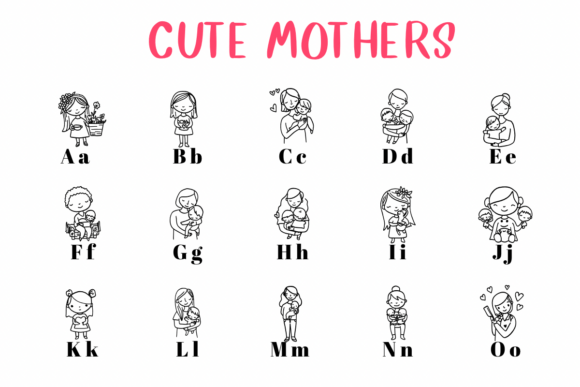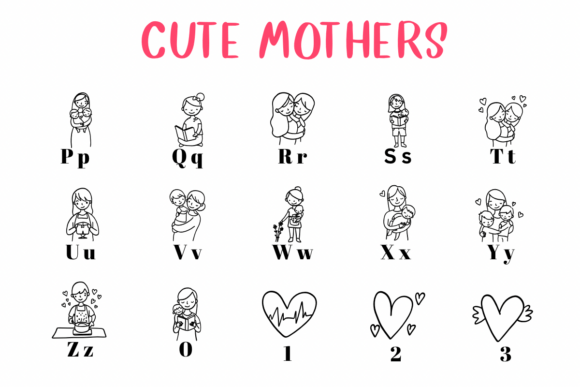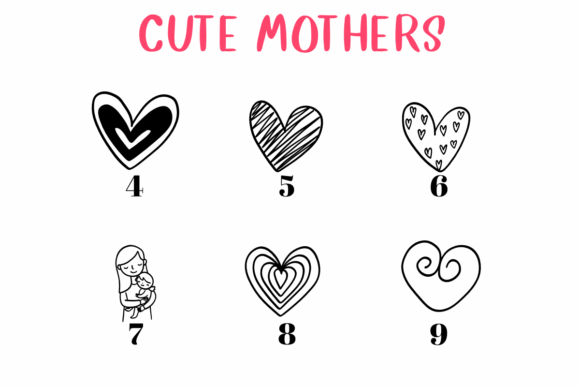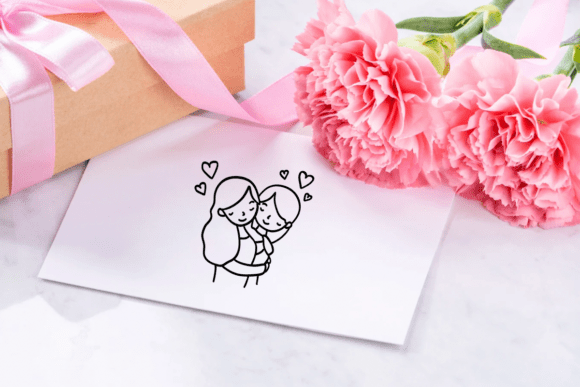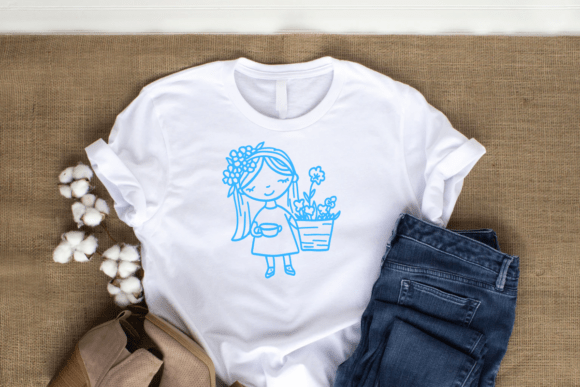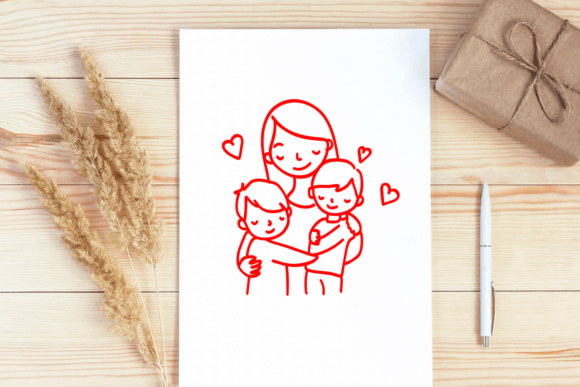
Cute Mothers Font: A Heartwarming Dingbat Font for Mother’s Day and Beyond
Are you looking for a unique and adorable way to express your love and appreciation for moms? Look no further than the Cute Mothers Font, a charming dingbat font filled with sweet and expressive illustrations of mothers and their little ones. This delightful font is perfect for Mother’s Day designs, baby shower invites, family scrapbooks, and heartfelt crafts.
What is Cute Mothers Font?
Cute Mothers Font is a dingbat font that features a collection of charming illustrations of moms and their children. The font is designed to add a loving touch to your creations, making it perfect for designers, crafters, and anyone looking to create heartfelt projects. With its sweet and expressive doodles, this font is sure to bring a smile to anyone’s face.
Perfect for Mother’s Day Designs
Mother’s Day is just around the corner, and what better way to show your appreciation for mom than with a custom design featuring the Cute Mothers Font? This font is perfect for creating beautiful and heartfelt Mother’s Day cards, posters, and social media posts. You can use the font to create custom illustrations of mom and child, or add a personal touch to your designs with adorable doodles.
Baby Shower Invites and Family Scrapbooks
The Cute Mothers Font is not just limited to Mother’s Day designs. It’s also perfect for baby shower invites, family scrapbooks, and other projects that celebrate the love and joy of family. You can use the font to create custom illustrations of mom and baby, or add a playful touch to your scrapbook pages with adorable doodles.
Heartfelt Crafts and DIY Projects
If you’re a crafter or DIY enthusiast, you’ll love the Cute Mothers Font. The font is perfect for creating handmade cards, gift tags, and other crafts that celebrate the love and appreciation of mothers. You can use the font to add a personal touch to your crafts, making them extra special and meaningful.
Easy to Use and Customize
Adorable Mom-Themed Graphics
The Cute Mothers Font features a range of adorable mom-themed graphics, including illustrations of mom and child, baby blocks, flowers, and more. These graphics are perfect for adding a loving touch to your designs, and can be used in a variety of creative ways. Whether you’re creating a custom Mother’s Day card or a family scrapbook page, these graphics are sure to bring a smile to anyone’s face.
Tips and Inspiration for Using Cute Mothers Font
Here are a few tips and inspiration ideas for using the Cute Mothers Font:
- Use the font to create custom Mother’s Day cards and gifts for mom.
- Add a playful touch to your baby shower invites and decorations.
- Create a family scrapbook page featuring illustrations of mom and child.
- Use the font to create handmade crafts, such as gift tags and cards.
- Experiment with different colors and styles to customize the font to your needs.
The Cute Mothers Font is a heartwarming dingbat font that’s perfect for anyone looking to add a loving touch to their designs. With its sweet and expressive illustrations of moms and their little ones, this font is sure to bring a smile to anyone’s face. Whether you’re a designer, crafter, or DIY enthusiast, this font is a must-have for creating custom Mother’s Day designs, baby shower invites, family scrapbooks, and heartfelt crafts.